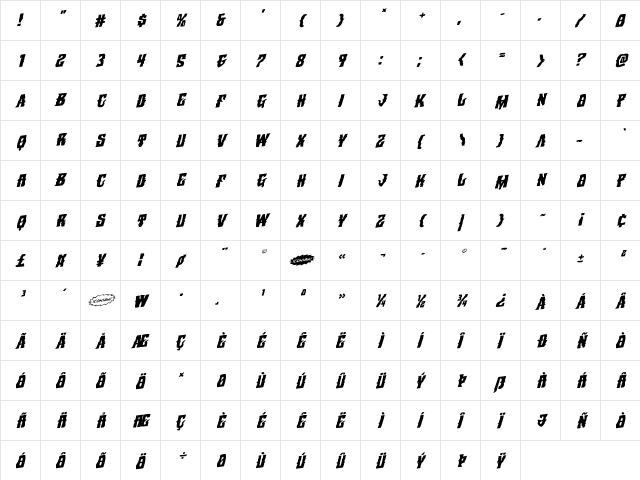
Warlock's Ale Rotalic Regular
Design Context for Warlock's Ale Rotalic Typeface
Warlock's Ale Rotalic is a composed and adaptable typeface that performs quietly and consistently across a wide range of design contexts.
Pro Tip: Use Warlock's Ale Rotalic in both headline and body roles to test its range before committing to a single application.